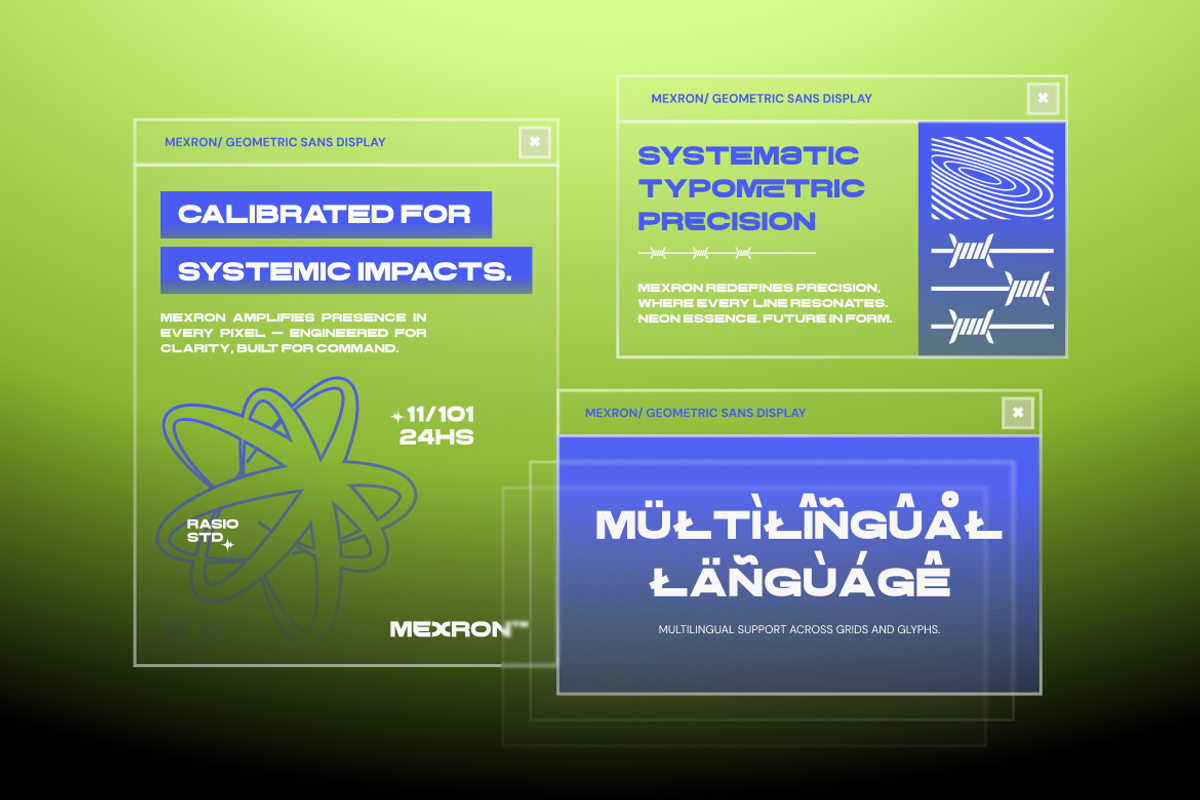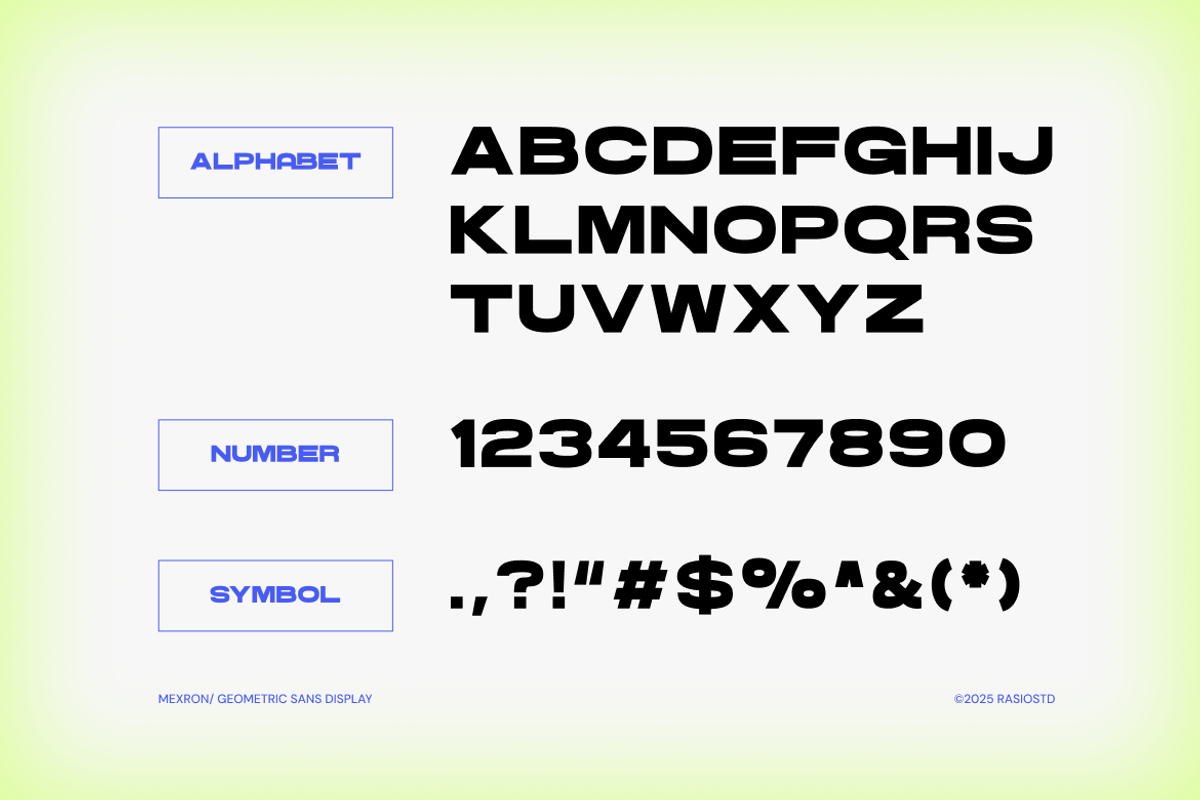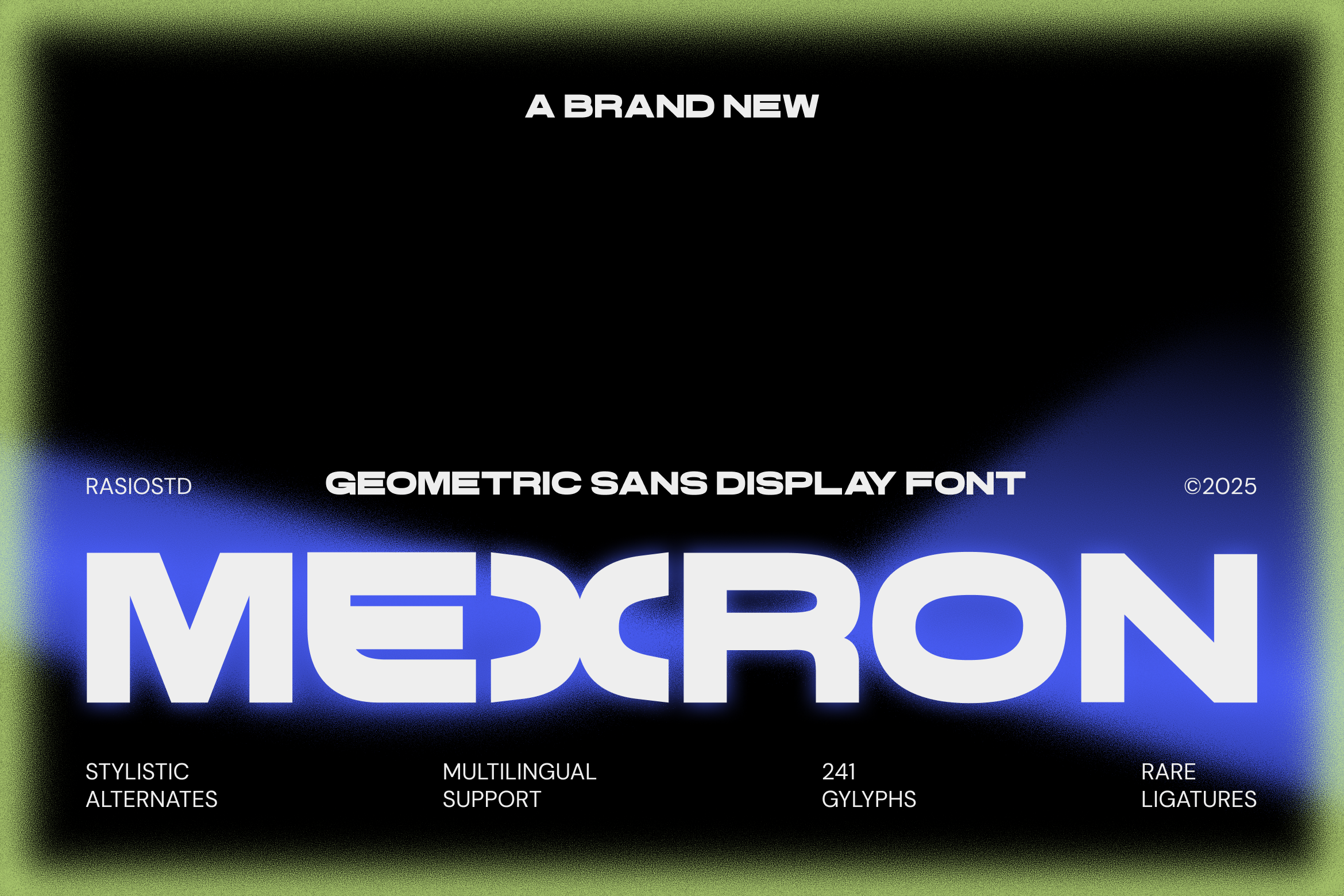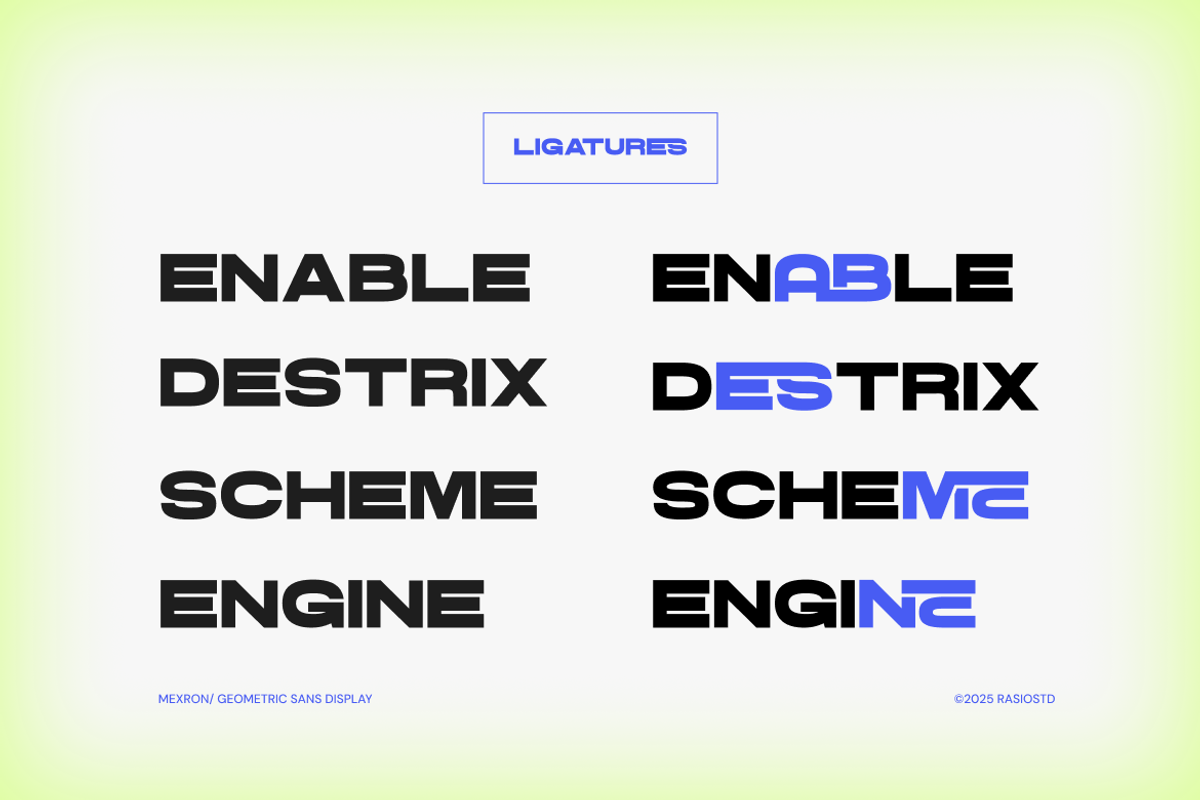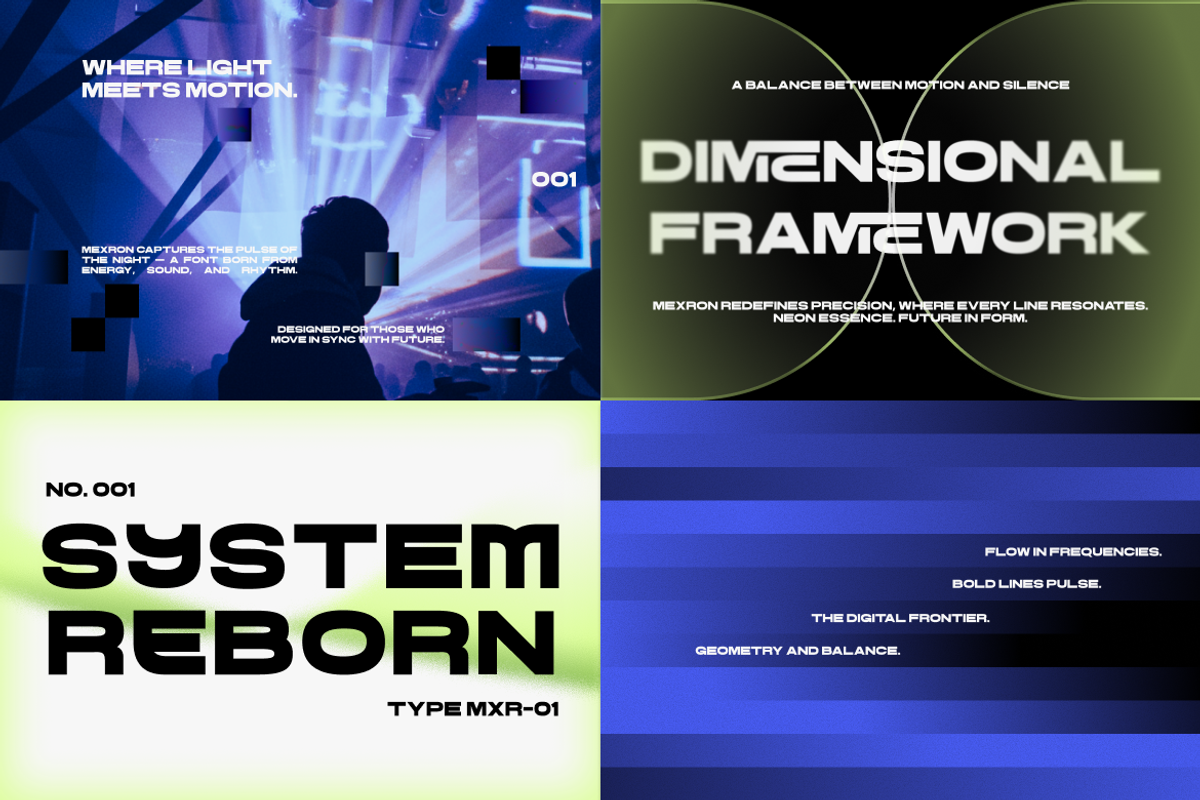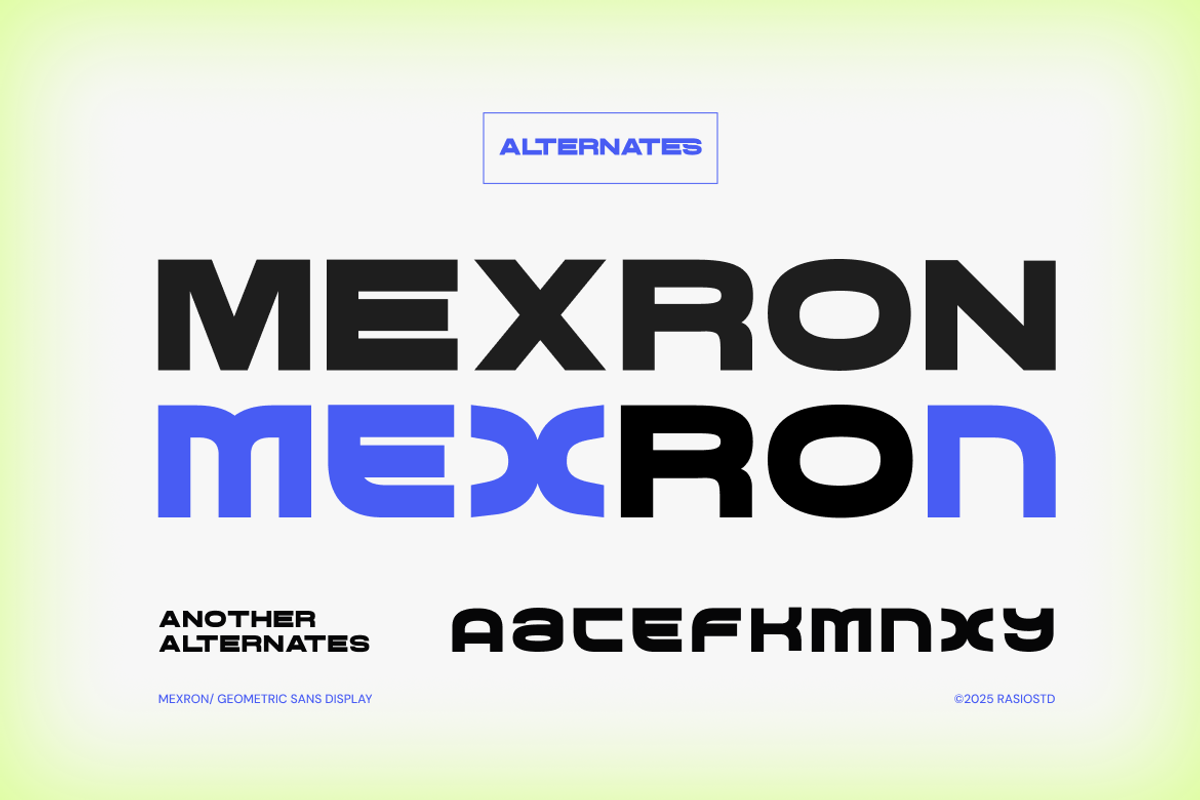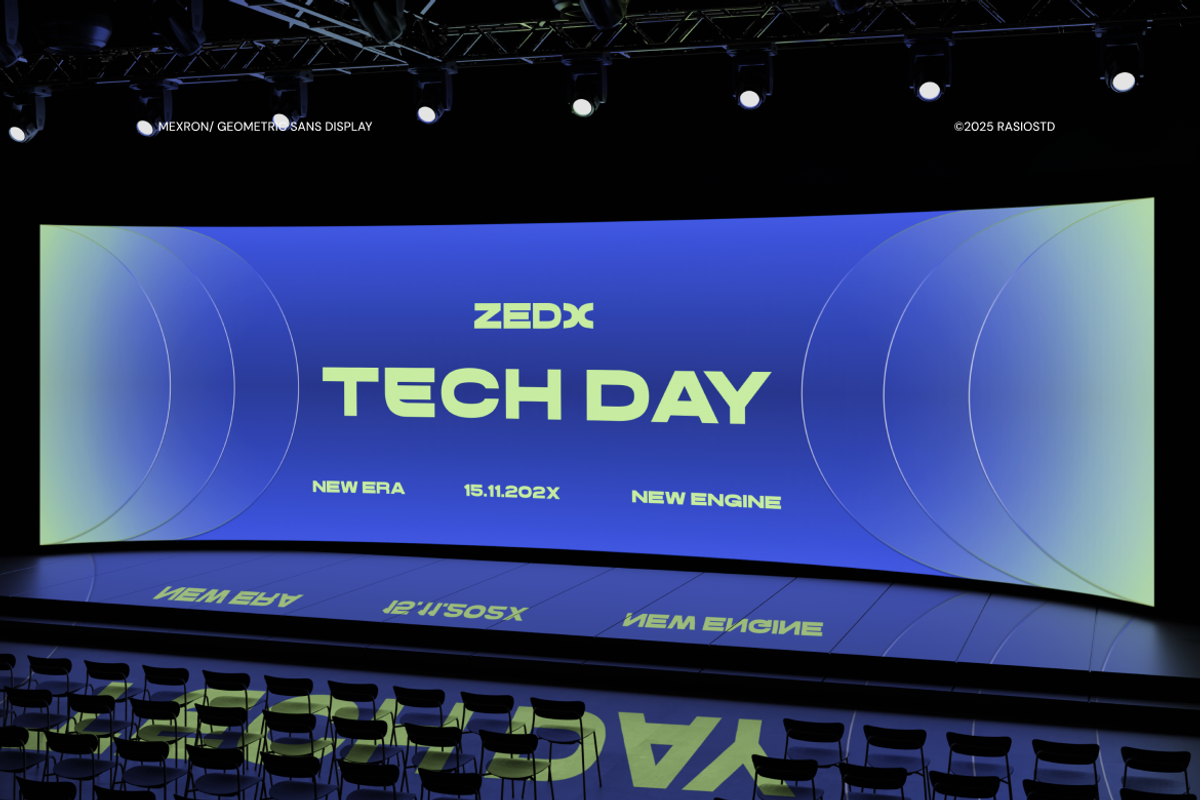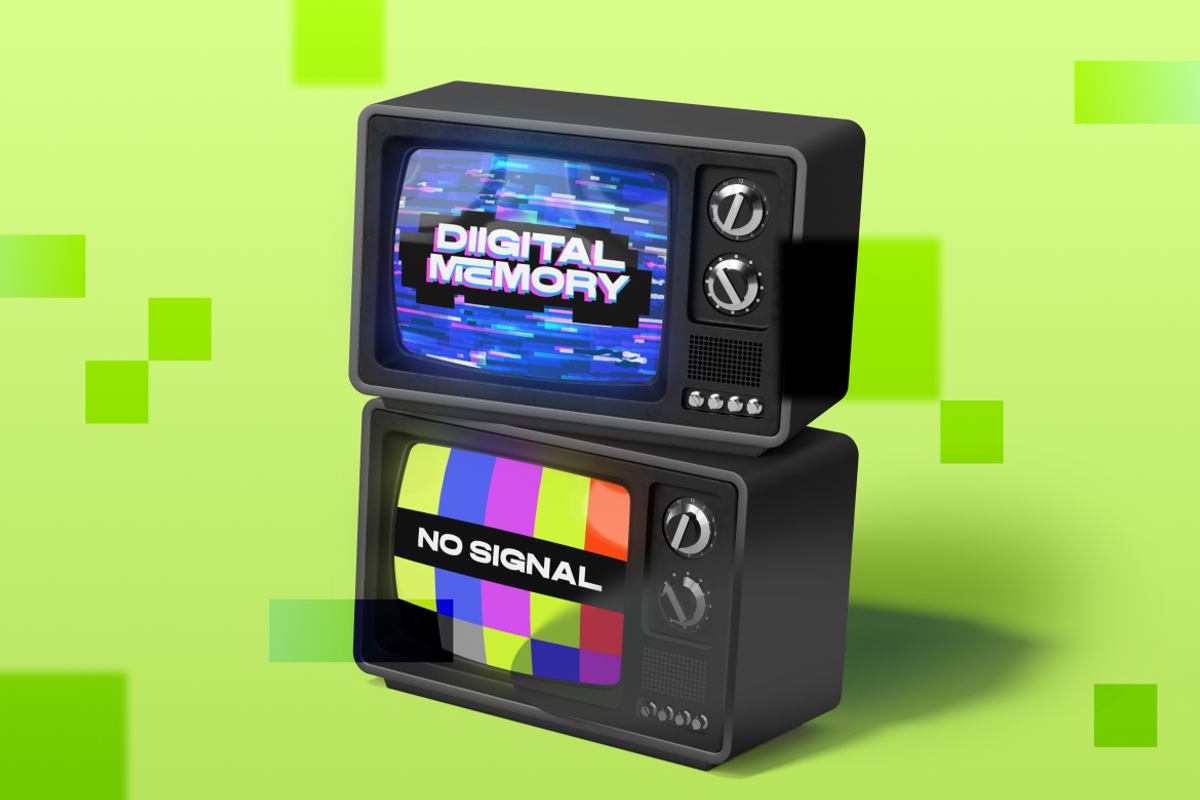
Mexron Geometric Sans Display Font
Mexron is a geometric sans display typeface that embodies the pulse of modern technology and digital futurism. Its precise construction, bold curvature, and modular alternates create a rhythm of light and motion across every composition. Designed for forward-thinking creatives, Mexron blends structure and style ideal for digital interfaces, music visuals, tech branding, and experimental layouts. Includes uppercase, numerals, punctuation, stylistic alternates, ligatures, and multilingual support.
Relevance and Use Cases is perfect for modern tech branding, futuristic startup identities, SaaS platforms and AI-based products, digital interfaces and dashboards, bold website headers and landing pages, app UI/UX design systems, esports and gaming visuals, tech event posters and conference materials, innovative product packaging, creative coding or developer-focused branding, and social media campaigns that require a sharp, high-impact, and forward-looking typographic presence
- Futuristic geometric sans with bold, modular letter construction
- Distinctive cut-ins and sharp joins creating a tech-driven visual identity
- Uniform stroke weight with minimal contrast for a clean digital look
- Wide proportions and strong horizontals enhancing readability at large sizes
- Stylistic alternates and ligatures adding versatility for dynamic compositions
- Futuristic brand identity systems for tech, AI, and digital startups
- App interfaces, dashboards, and modern UI/UX design systems
- Gaming, esports, and cyber-themed visual content
- Bold headlines for posters, landing pages, and tech campaigns
- Innovative product branding and packaging with a high-tech aesthetic